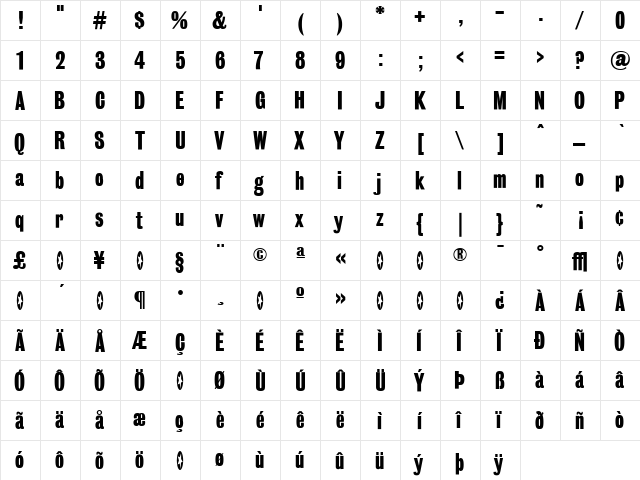
BureauGrotesque-OneSeven Regular
Design Context for BureauGrotesque-OneSeven Typeface
BureauGrotesque-OneSeven offers clean, dependable letterforms without strong stylistic allegiance, making it a practical choice for designers who need flexibility.